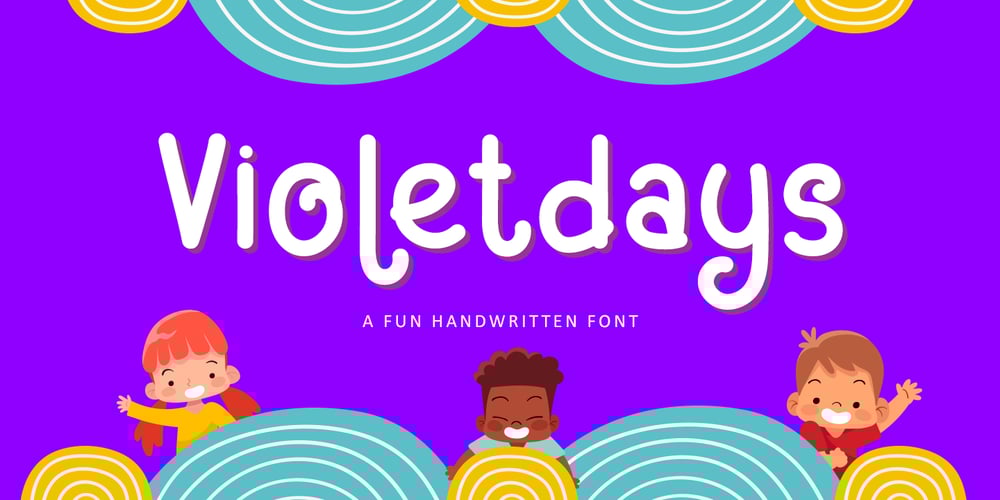
Violetdays Font Family was designed by Bayu Suwirya and published by Illushvara. Violetdays contains 1 styles and family package options. Hello,Present a new font Violetdays a handwritten font special for the kids theme promotion.Violetdays is perfect for product packaging, branding project, magazine, social media, wedding, or just used to express words above the background.Enjoy the font, if you have any question don’t hesitate to contact me comment or feedback, send me PM or email. Happy Designing!Thank you,Bayu Suwirya